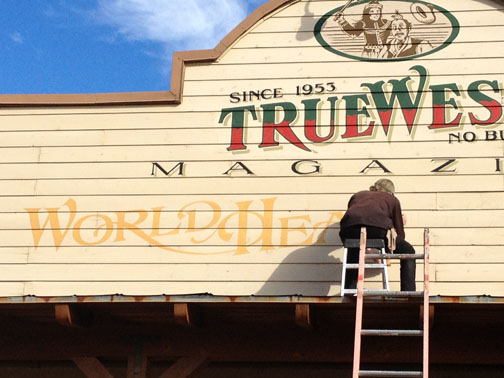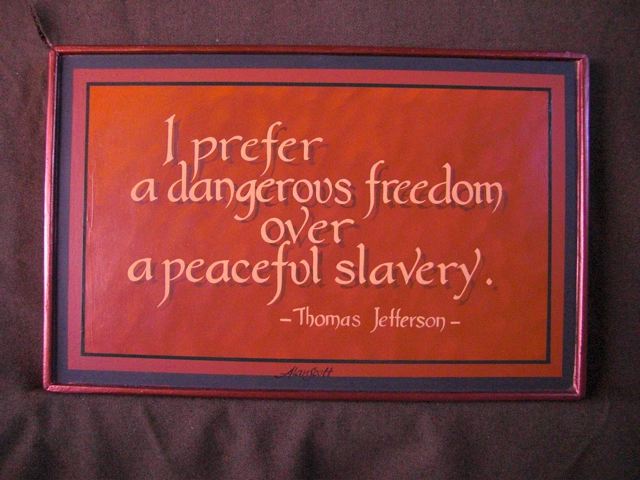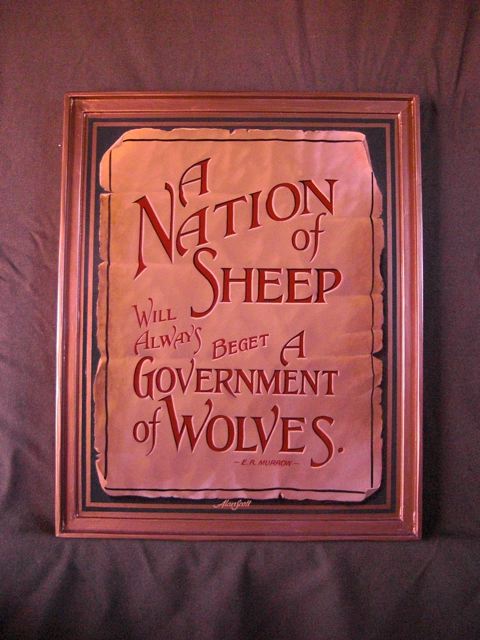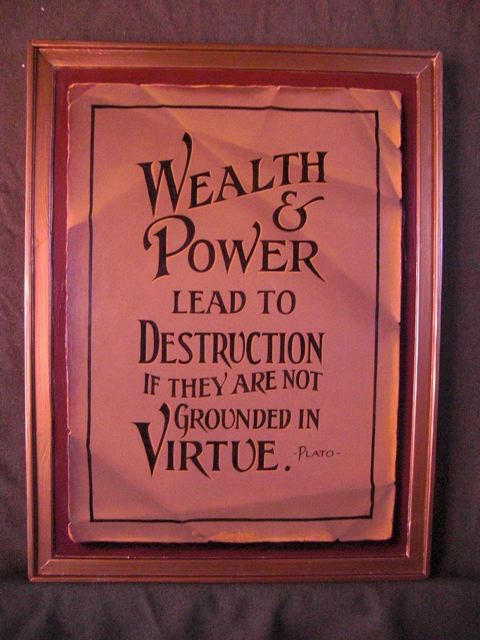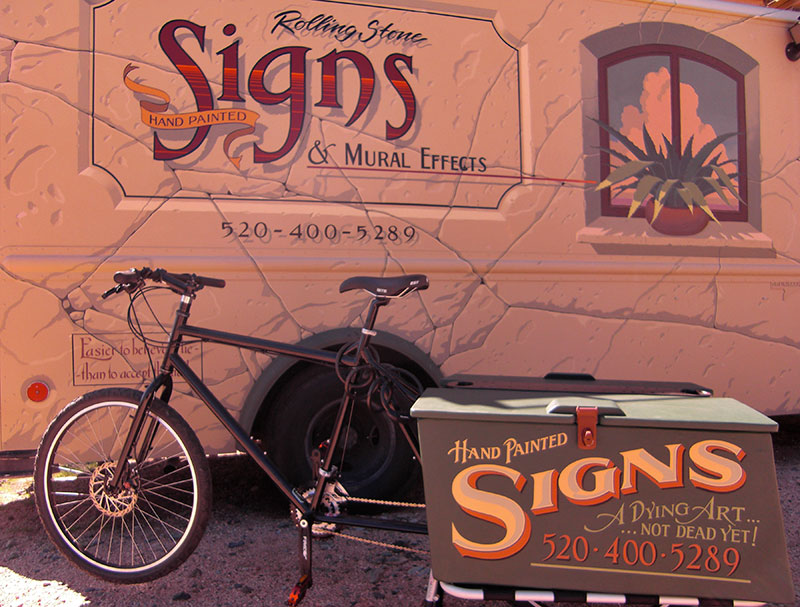
Kim Ross in Arizona asked me to post these.
Alan Scott is a friend of Kim's living and working a town nearby. He is a sign painter, with home base being his van behind him sans computer.
Accordingly, all his work is with pencil, brush and paint.
alan used to work with a few of us around eugene/springfield or. area.......a fine sign artist and a good soul.
Hi Vance, glad you've seen Alan's work. I've only seen what Kim has sent, looks like good work.
excellent... pencil, paper, brush, hand lettering
even now it is the mark of a craftsman and fine establishments who value their business with a unique identity
well done!